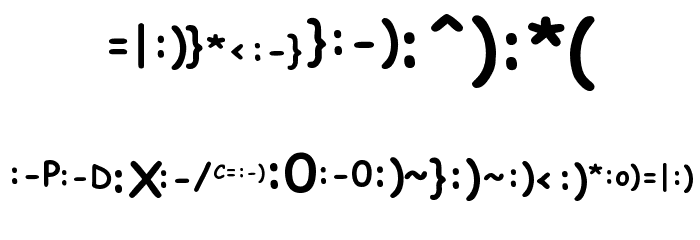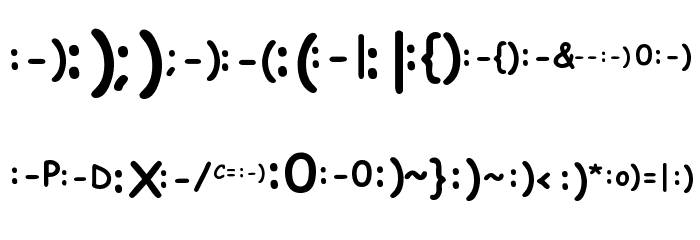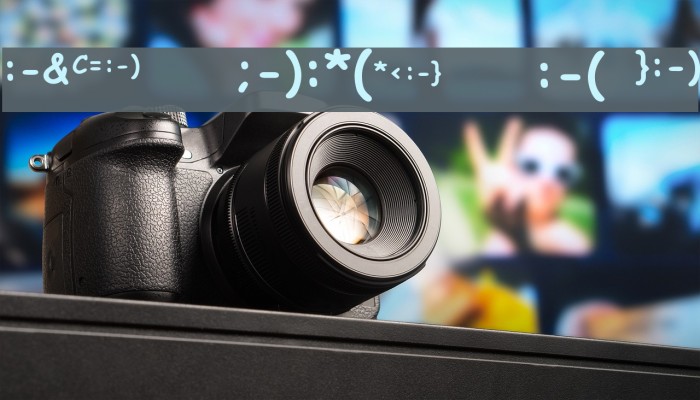
KR Deb's Emoticons Font
This is a playful and expressive collection of emoticons crafted using a variety of punctuation marks and symbols. Each emoticon is designed to convey different emotions and expressions, from happiness and surprise to confusion and sadness. The characters are arranged in a way that creates a whimsical and engaging visual experience. The use of bold lines and clear spacing ensures that each emoticon is easily recognizable and distinct. This set is perfect for adding a touch of humor and personality to digital communications.
A playful and expressive collection of emoticons using punctuation marks.
- Proposed Projects: Ideal for digital communication platforms, social media graphics, or any project that requires a fun and engaging way to express emotions.
- Overall Style: Playful
- Use Case: Digital communications, Social media, Graphic design